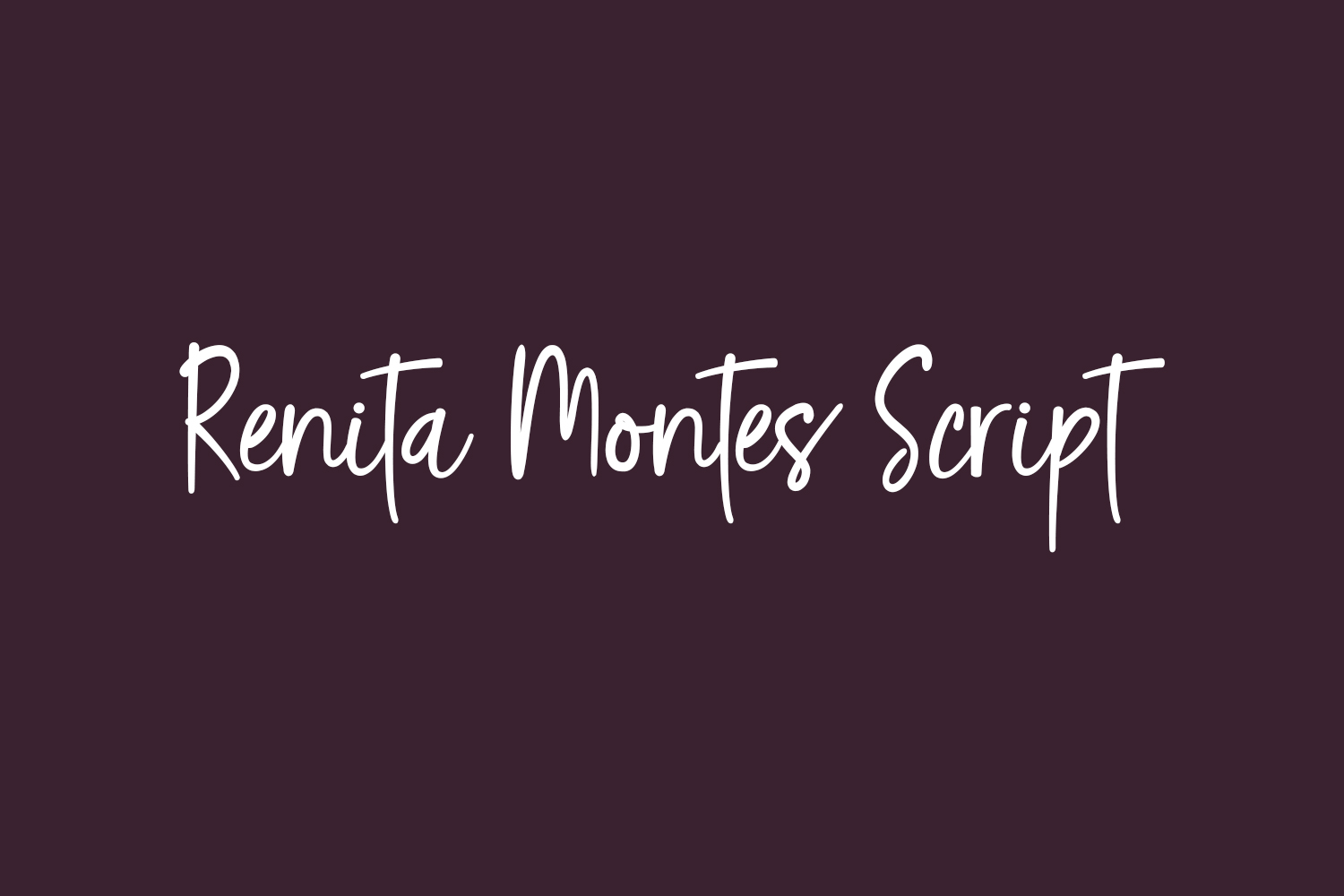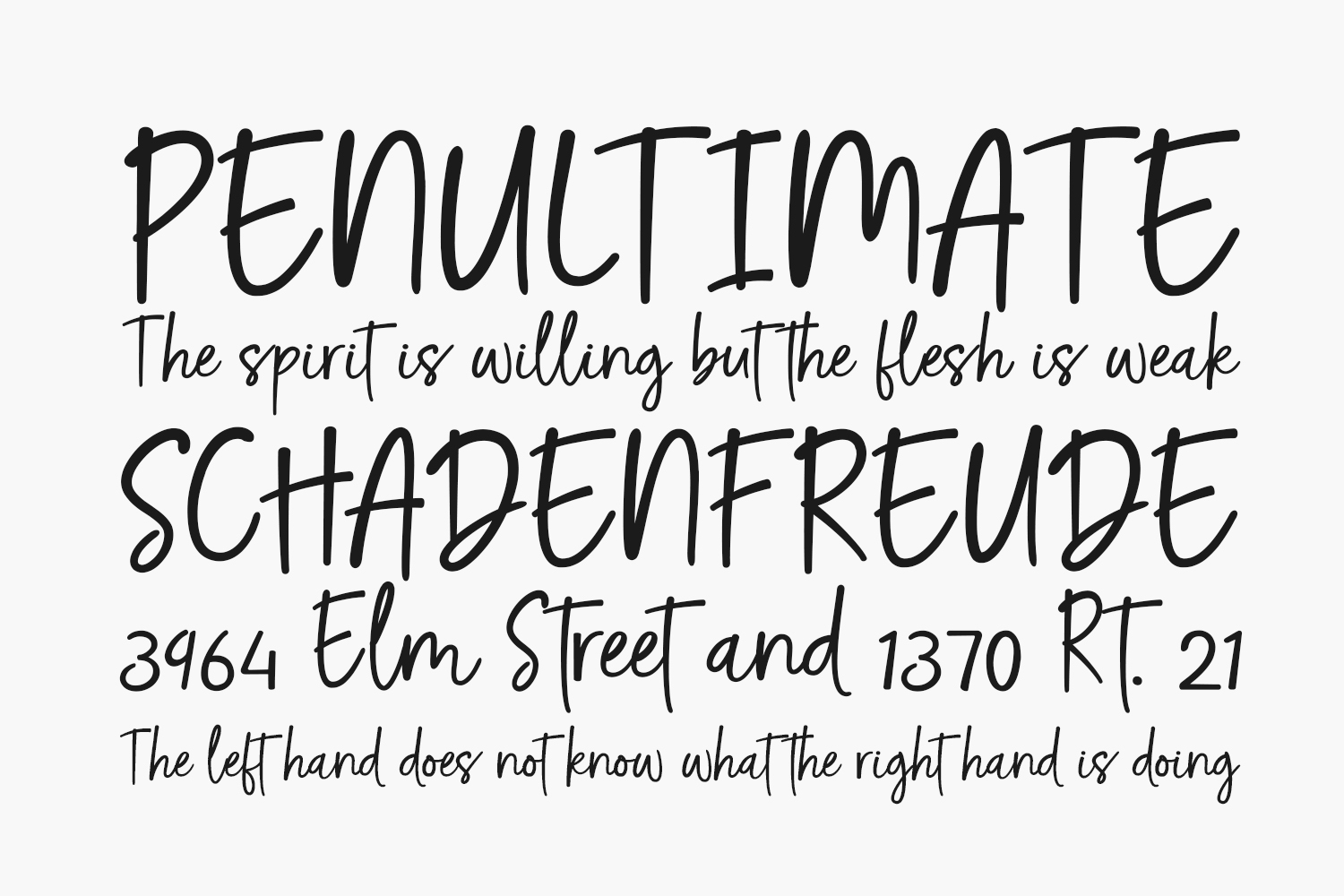
Renita Montes Script Free Font – Chic Handwritten Script for Branding & Invites
Renita Montes Script is a graceful handwritten font crafted by UI Creative, offering stylish curves and a personal touch to your designs. This elegant script combines flowing, slightly slanted strokes with refined ligatures, making it ideal for personal branding, wedding invitations, logos, stationery, and social media headers. Available in TTF format and free for personal use. Looking to use it commercially? Grab the full version via Creative Market or directly from the designer for a seamless license experience. Elevate your projects with a hand-lettered aesthetic that feels authentic and modern.
Why Choose Renita Montes Script?
- Handwritten Elegance: Smooth, flowing strokes give a distinctive personal handwriting style.
- Versatile & Chic: Works beautifully across branding, invites, stationery, and social media.
- Refined Details: Stylish ligatures and balanced letterforms enhance a polished look.
Where to Use Renita Montes Script?
- Personal Branding & Logos: Ideal for signature-style wordmarks and branding assets.
- Wedding Invites & Stationery: Adds charm to save-the-dates, menus, and thank-you cards.
- Social Media Graphics: Elegant choice for Instagram quotes, Pinterest pins, and blog headers.
- Packaging & Merch: Suitable for boutique labels, tags, and lifestyle products.
- Editorial Features: Beautiful accent font for magazines, blogs, and newsletters.
Design Tips with Renita Montes Script
Use this script at medium to large sizes (18pt+) to highlight its smooth curves and ligatures. Pair it with a neutral sans-serif like Origin or Leon for body text to create balance. Stick to monochrome or soft pastel palettes for a classy, minimalist look. Use generous letter-spacing for improved legibility, especially in digital formats.
- Glyphs: Uppercase (A–Z), lowercase (a–z), numerals, punctuation, basic Latin characters.